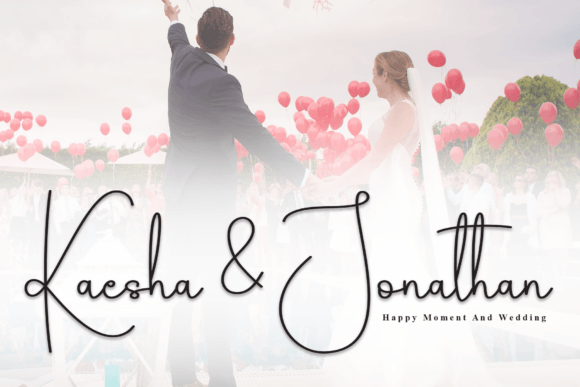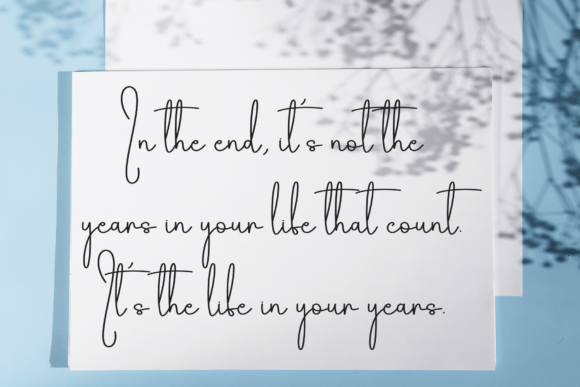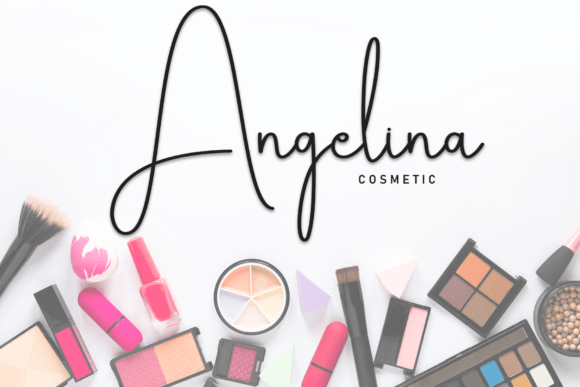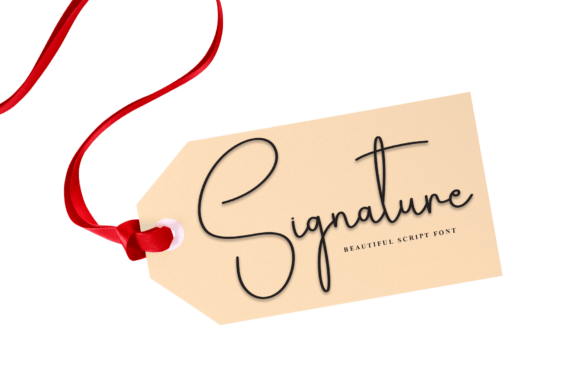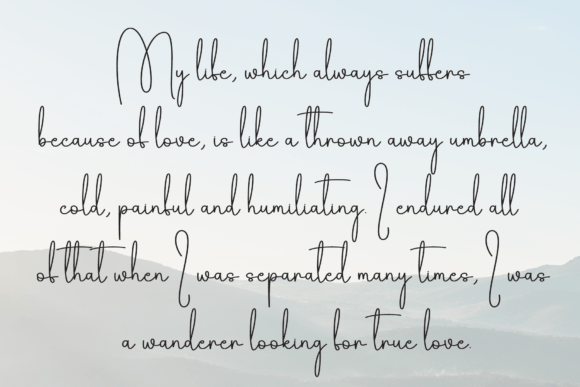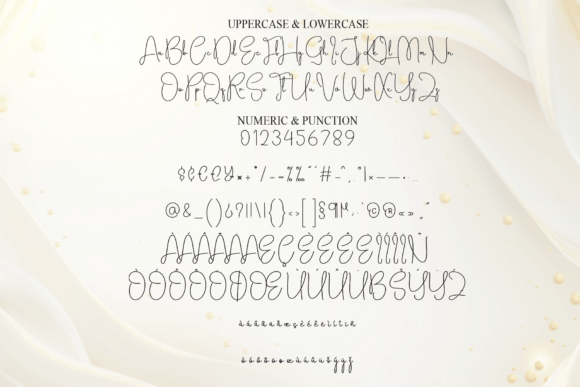
Discover the Enchanting Font: Your New Go-To for Creative Projects
Are you on the hunt for a font that adds a touch of magic to your designs? Look no further than the Enchanting Font, a playful and personable handwritten display font that’s sure to become your new favorite companion in the world of creativity. With its unique blend of whimsy and sophistication, this delightful font is perfect for a wide range of projects, from wedding invitations and heartfelt cards to any design endeavor that could use a dash of fun and personality.
The Charm of Enchanting Font
What sets the Enchanting Font apart is its heartening charm. In an era where digital communication often feels impersonal, this font brings a much-needed breath of fresh air to the table. Its playful strokes and endearing flair make it an exquisite choice for anyone looking to add a personal touch to their creations. Whether you’re a designer, crafter, or simply someone who loves to dabble in DIY projects, the Enchanting Font is sure to inspire your creativity and elevate your work to new heights.
The versatility of the Enchanting Font is one of its most appealing qualities. Here are just a few ways you can use this beautifully sweet and friendly font in your creative endeavors:
- Wedding Invitations: Make your wedding invitations truly unforgettable with a font that exudes love, joy, and a hint of playfulness. The Enchanting Font is perfect for crafting beautiful, one-of-a-kind wedding invites that set the tone for your special day.
- Heartfelt Cards: Whether you’re celebrating a birthday, anniversary, or just want to let someone know you’re thinking of them, the Enchanting Font is ideal for creating heartfelt, handmade cards that come from the heart.
- Design Projects: From branding and packaging to posters and flyers, this font can add a touch of whimsy and sophistication to any design project. Its unique charm makes it a great choice for businesses and individuals looking to stand out from the crowd.
Why Choose the Enchanting Font?
So, what makes the Enchanting Font so special? Here are a few reasons why designers and crafters are falling in love with this delightful font:
- Playful yet Sophisticated: The Enchanting Font strikes the perfect balance between playfulness and sophistication, making it suitable for a wide range of projects and audiences.
- Easy to Read: Despite its whimsical nature, the Enchanting Font is incredibly easy to read, ensuring that your message is always communicated clearly and effectively.
- Highly Versatile: Whether you’re working on a digital project or a physical one, the Enchanting Font adapts beautifully to different mediums and sizes.
Tips for Using the Enchanting Font
To get the most out of the Enchanting Font, here are a few tips to keep in mind:
- Experiment with Sizes: Don’t be afraid to experiment with different sizes to see how the Enchanting Font looks in various contexts. Its charm is just as captivating in large display sizes as it is in smaller, more delicate applications.
- Pair it with Other Fonts: The Enchanting Font pairs beautifully with a variety of other fonts. Try combining it with a clean sans-serif for a modern contrast or with another script font for a more romantic, layered look.
- Use it to Add Personality: The Enchanting Font is all about adding personality to your designs. Use it sparingly to highlight key information or as a headline to draw attention and add flair.
The Enchanting Font is more than just a font – it’s a tool for creativity, a dash of inspiration, and a way to bring a little more joy into your designs. With its playful yet sophisticated charm, this beautifully sweet and friendly font is sure to become an indispensable part of your creative toolkit. Whether you’re crafting unforgettable wedding invitations, heartfelt cards, or any other design project, the Enchanting Font is the perfect companion for adding a sprinkle of whimsy and a lot of heart.